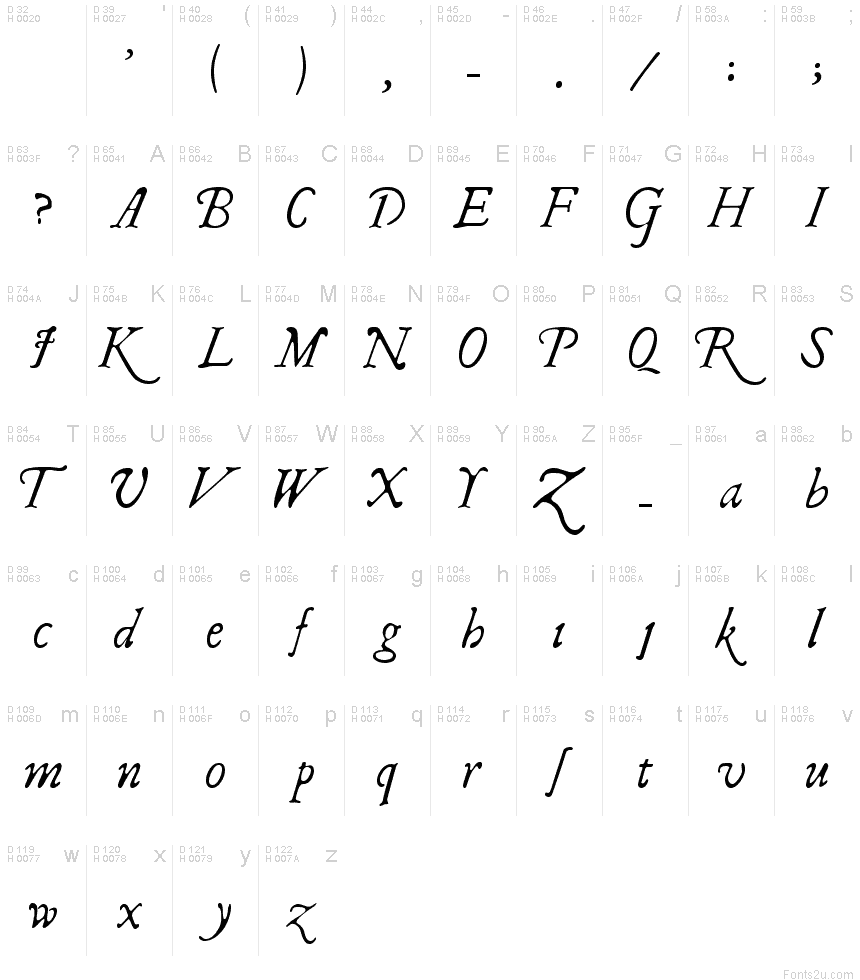
ILShakeFest
IL Shake Fest font by Illinois Shakespeare Festival is a free retro script font that channels hand-lettered playbills and old theatre signage. Its flowing, slightly tilted strokes feel like quick, inky brushwork-expressive, but still readable-while the subtle quirks in each curve give text a warm, human cadence. Set large, ILShakeFest has a stage-presence quality, like a title scrawled across a velvet curtain.
Using IL Shake Fest, headlines and titles gain a literary, dramatic flair that works beautifully for theater posters, festival branding, book covers, invitations, and poetry quotes. This free font also shines on wine labels and event programs where you want a touch of classic romance without going stiff or formal. For balance, pair IL Shake Fest with a clean geometric sans at smaller sizes to keep supporting text crisp and legible.